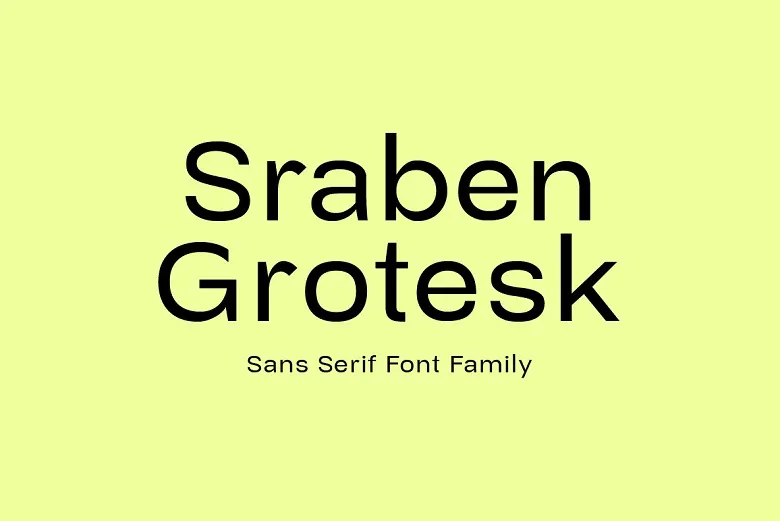
Sraben Grotesk Font Family
Sraben Grotesk Font is a beautiful font family and is quite versatile, so you can use it for practically any kind of project! It has many proportional sections with some parts being slightly more emphasized than the others. This font has the features of Grotesk typography and thus suitable for use in posters, flyers, brochures, logos, and magazine layouts.